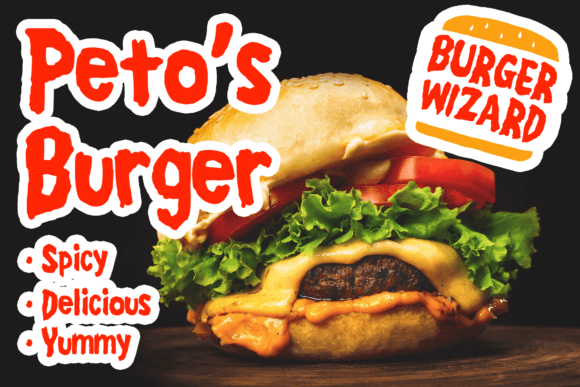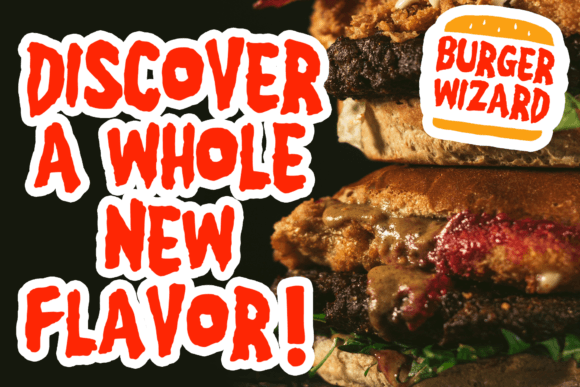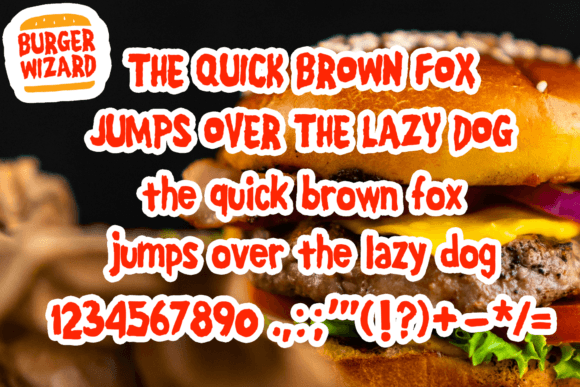
Burger Wizard Font: The Ultimate Display Font for Designers and Crafters
Are you tired of using the same old fonts for your design projects? Look no further than the Burger Wizard Font, a unique, playful, and fun display font that’s sure to elevate your designs to the highest level. Inspired by a mix of spooky cartoon and food display, this font is perfect for designers and crafters looking to add a super cool touch to their work.
What Makes Burger Wizard Font So Special?
Burger Wizard Font is not your average font. Its unique blend of spooky cartoon and food display elements makes it a standout in the world of typography. The font’s playful and fun design is sure to capture the attention of your audience, making it perfect for a wide range of design projects. Whether you’re working on stickers, t-shirt designs, logo designs, magazine or book covers, comics, cartoon drawings, food menus, or beverages, Burger Wizard Font is the perfect choice.
One of the best things about Burger Wizard Font is its versatility. The font can be used for a wide range of design ideas, including:
• Stickers: Add a fun and playful touch to your stickers with Burger Wizard Font.
• T-shirt designs: Create eye-catching t-shirt designs that are sure to turn heads.
• Logo designs: Create amazing logo designs that will help your brand stand out.
• Magazine or book covers: Add a touch of whimsy to your magazine or book covers.
• Comics and cartoon drawings: Bring your comics and cartoon drawings to life with Burger Wizard Font.
• Food menus and beverages: Add a fun and playful touch to your food menus and beverages.
Why Choose Burger Wizard Font?
So why choose Burger Wizard Font over other display fonts? Here are just a few reasons:
• Unique design: Burger Wizard Font has a unique design that’s sure to capture the attention of your audience.
• Playful and fun: The font’s playful and fun design makes it perfect for a wide range of design projects.
• Versatile: Burger Wizard Font can be used for a wide range of design ideas.
Tips for Using Burger Wizard Font
Here are a few tips for using Burger Wizard Font:
• Use it sparingly: While Burger Wizard Font is perfect for headlines and titles, it’s best to use it sparingly to avoid overwhelming your design.
• Pair it with other fonts: Burger Wizard Font pairs well with other fonts, so feel free to experiment with different combinations.
• Experiment with colors: The font’s playful design makes it perfect for experimenting with different colors and color combinations.
Font Name Burger Wizard Font
Author MVMET
• Q: What type of font is Burger Wizard Font?
• A: Burger Wizard Font is a display font.